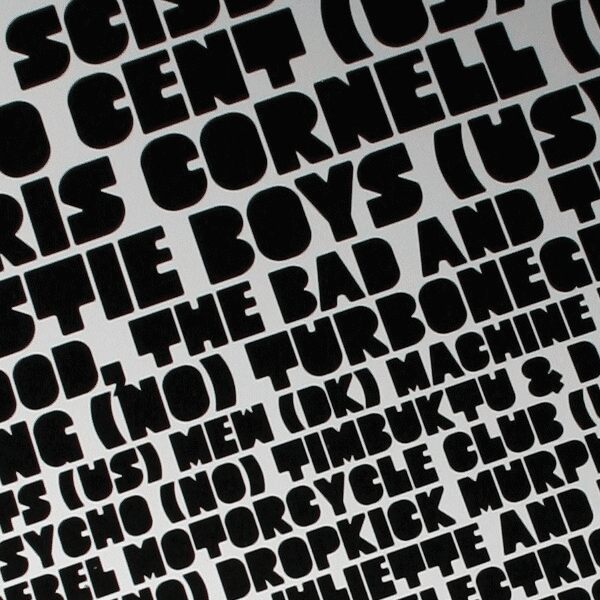
Quart07 by Norwegian Ink, credited to International Typeface Corporation, is a free groovy display font with an unmistakably 1970s silhouette. Its massive rounded letters swell into soft curves, with tight interior cuts and occasional sharp wedges giving the forms a compact, sculpted look.
A record shop, festival, or retro clothing label could build a lively identity around these dense, bulbous shapes. The same lettering also suits album packaging and music posters, especially when the artwork draws on psychedelic patterns or pop graphics. In magazine design, it can turn a cover line into part of the illustration rather than leaving it as ordinary editorial type.
Designed in 2007 for the Quart Festival in Kristiansand, Norway.